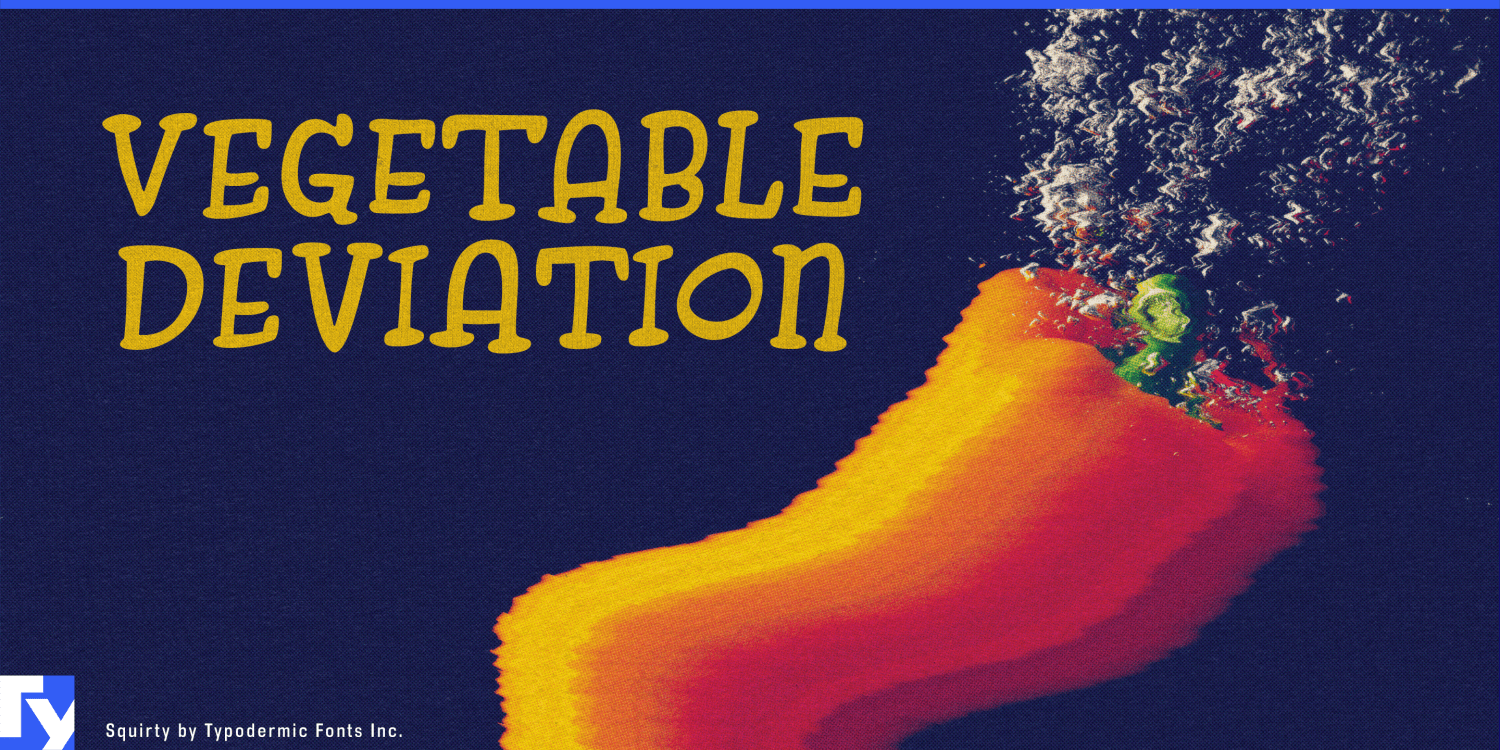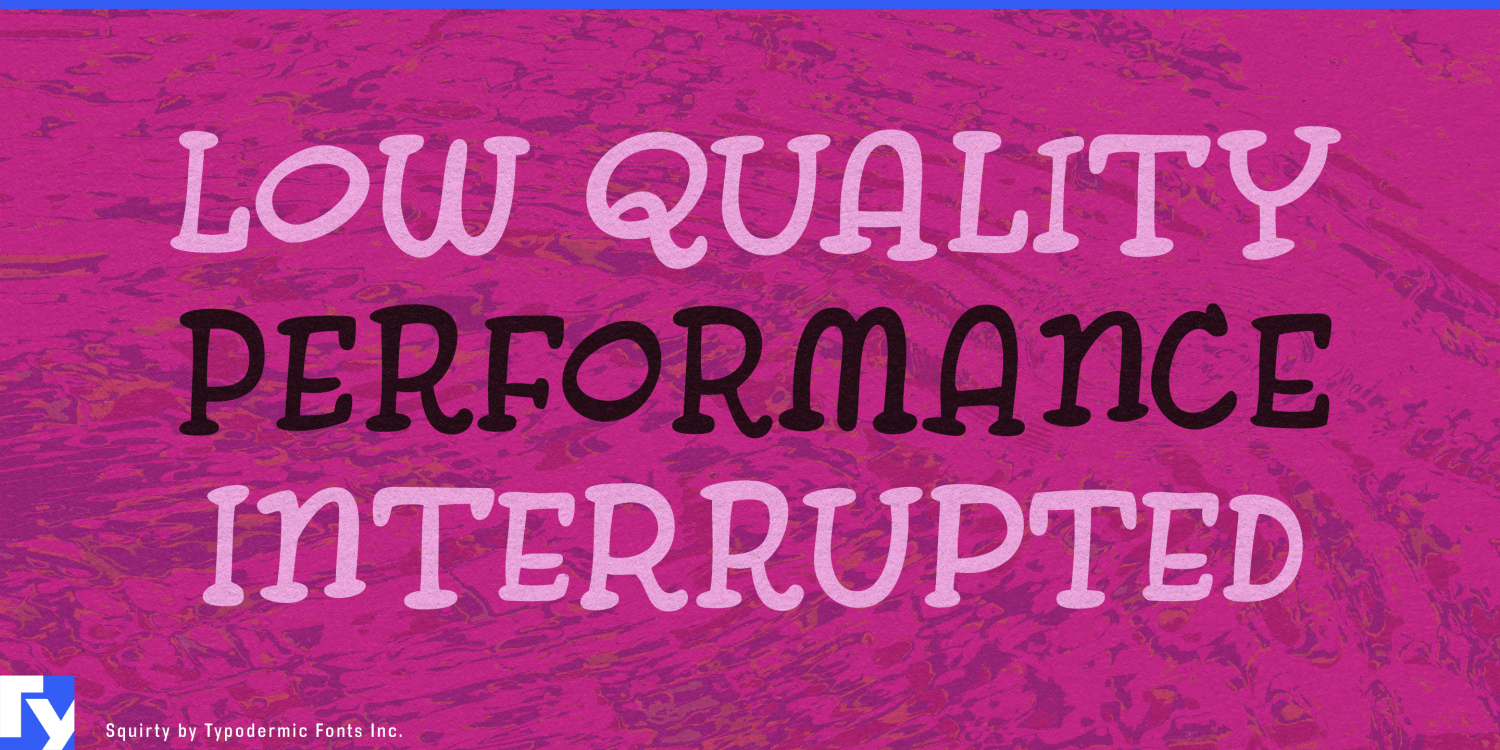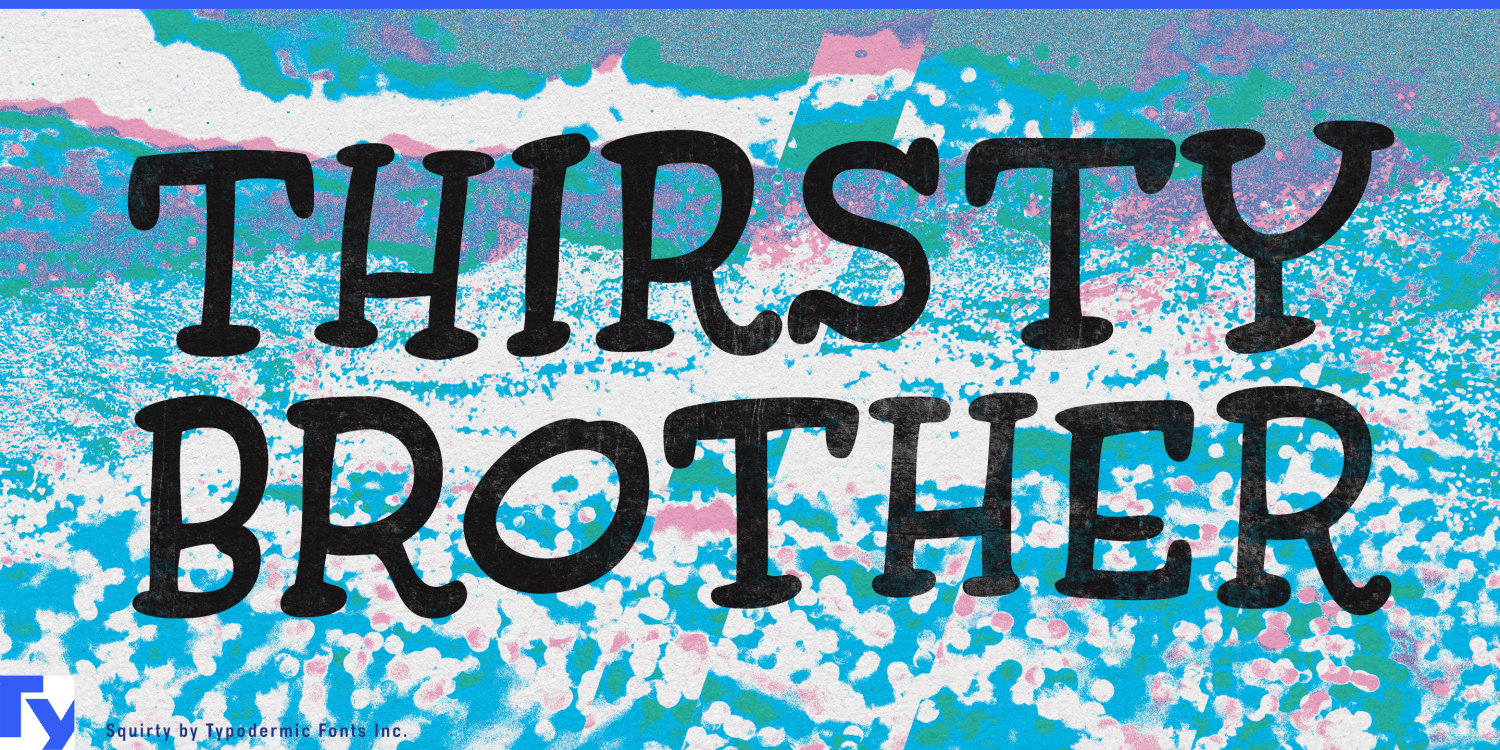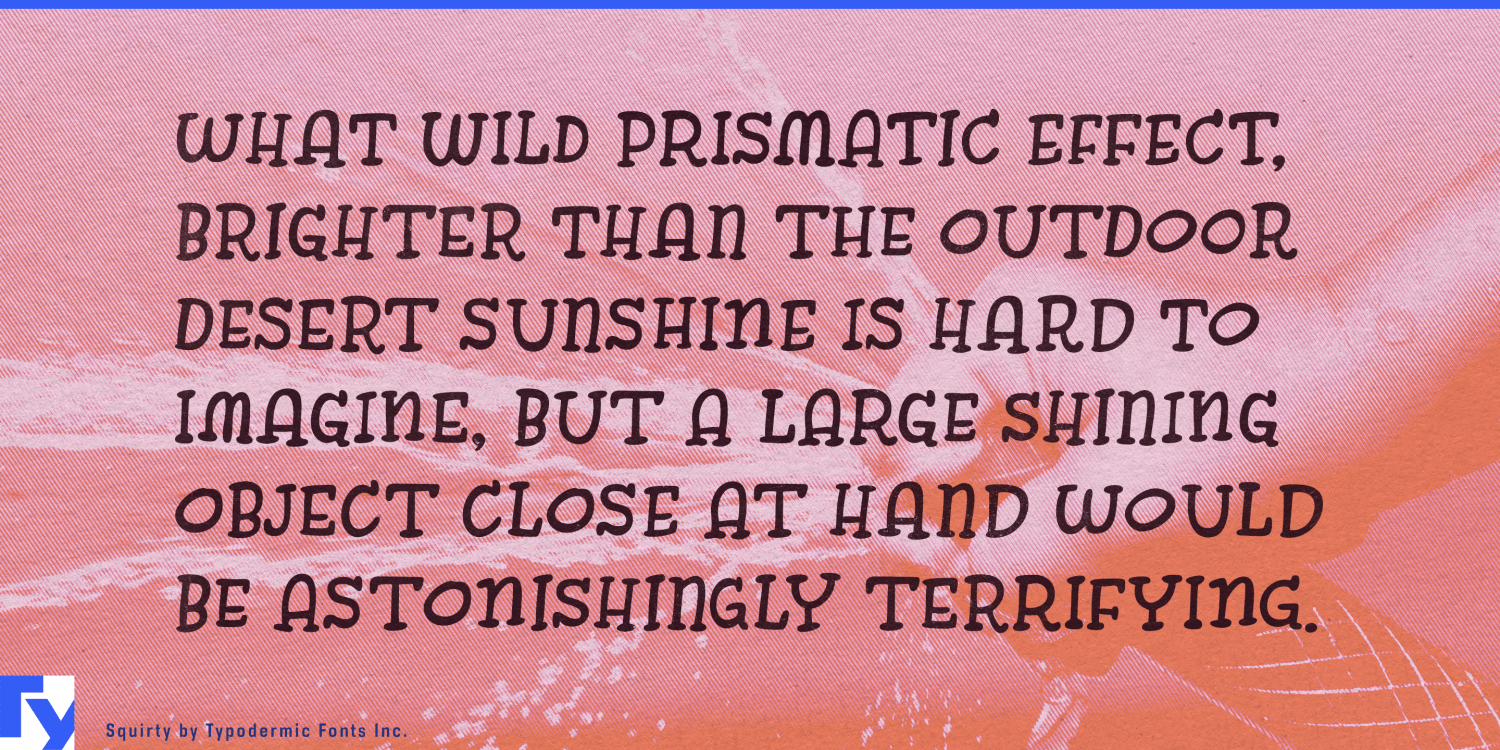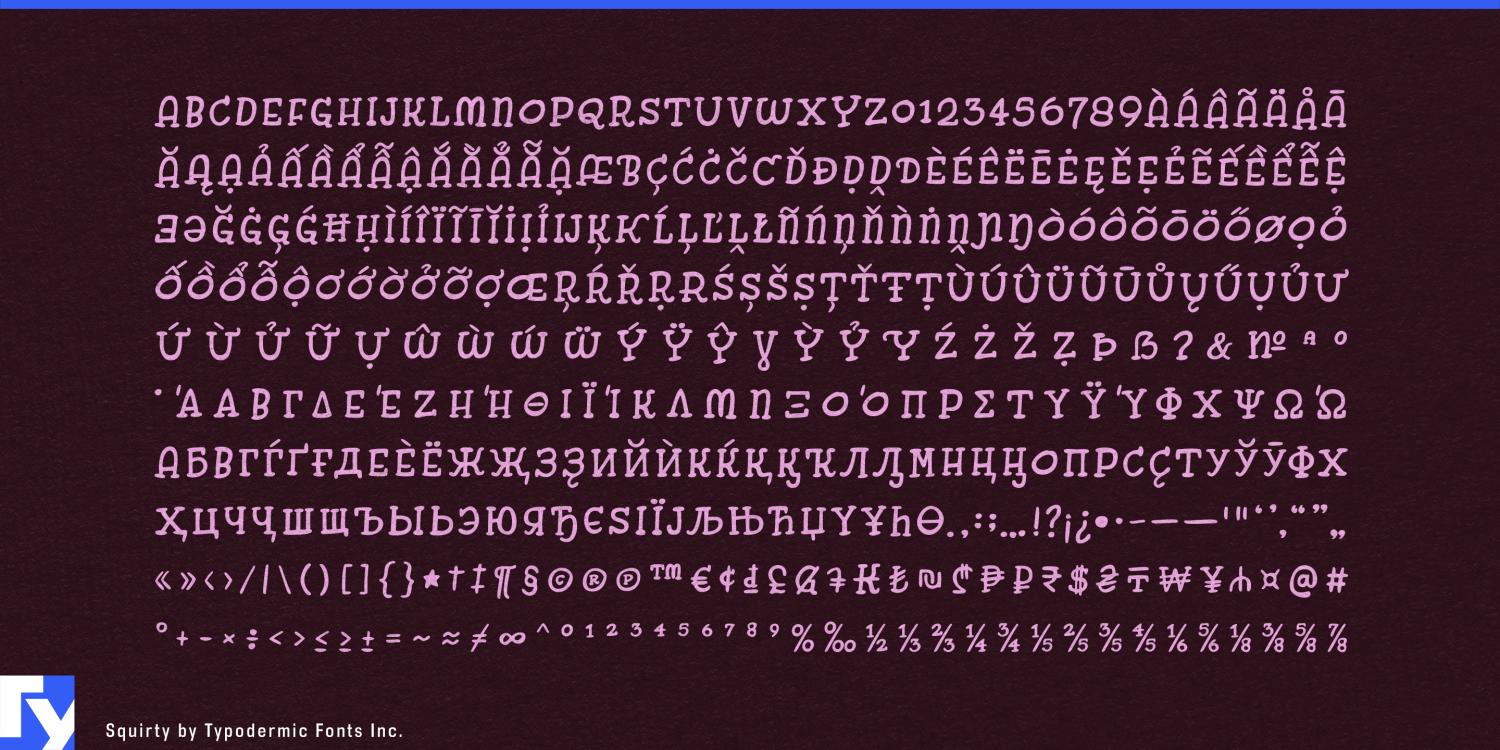
Squirty
About Squirty
Squirty bursts onto the typographic scene with the vibrant energy of a Japanese nightclub, infusing your designs with an irresistible zest for life. This typeface doesn’t just sit on the page—it dances, it laughs, it beckons you to join in…